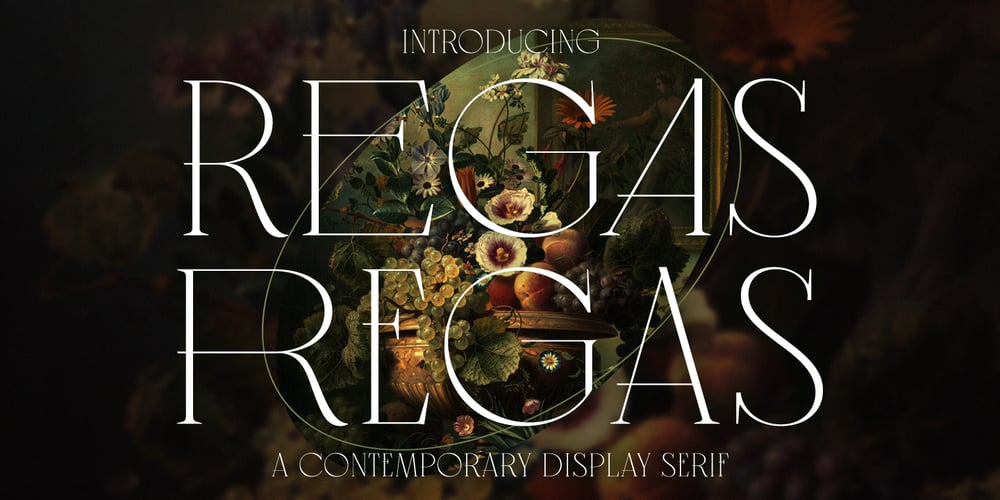
Regas Font Family was designed by Eko Nur Cahyo and published by Kulokale. Regas contains 2 styles and family package options. Regas is a contemporary and classic display serif font. Regas is well-suited for advertising, branding, logotypes, packaging, titles, headlines and editorial design. This font comes in two styles, Regular and Oblique Version.This font is encoded with Unicode PUA, which allows full access to all additional characters without having special design software. Mac users can use Font Book, and Windows users can use Character Map to view and copy one of the extra characters to paste into your favorite text editor / application.We highly recommend using a program that supports OpenType features and Glyphs panels such as Adobe Illustrator, Adobe Photoshop CC, Adobe InDesign, or CorelDraw, so you can see and access all Glyph variations.We hope you enjoy the font. Thanks and have fun!